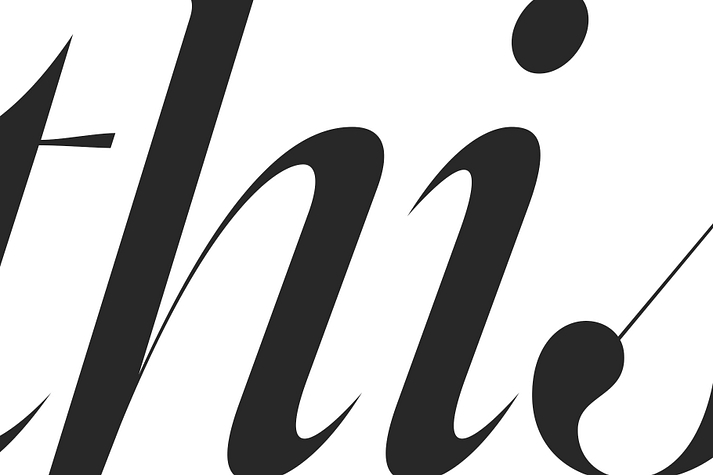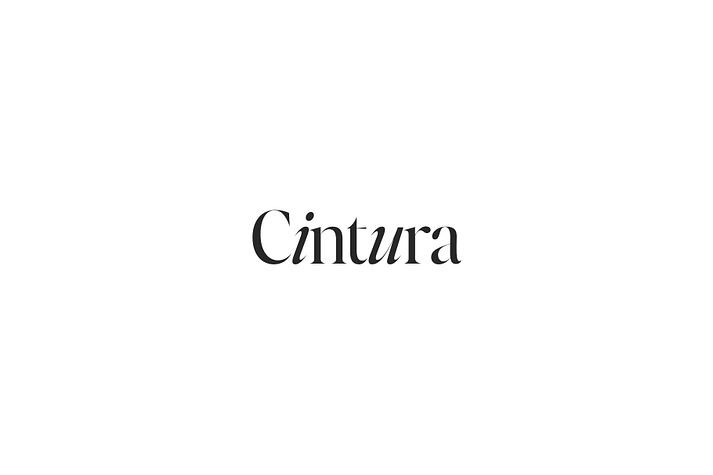
Editor's Note Display
Editor's Note Display is a display serif and serif font family. This typeface has sixteen styles and was published by Jen Wagner Co.
Editor’s Note Display is the sharp, high contrast partner to Editor’s Note and Editor’s Note Text.
It takes the forms of Editor’s Note and adds heart-skipping crispness with razor sharp points and super thin lines for extra high contrast. Every point, line, and curve has been obsessed-over so that you know it can get really big without looking “off”, while still being a seriously gorgeous option for any context.
Don’t be afraid of scale – Editor’s Note Display wants to be BIG. Show off the sharp points by taking your web headers up a few sizes, or use it for your social media carousel titles and reel covers.